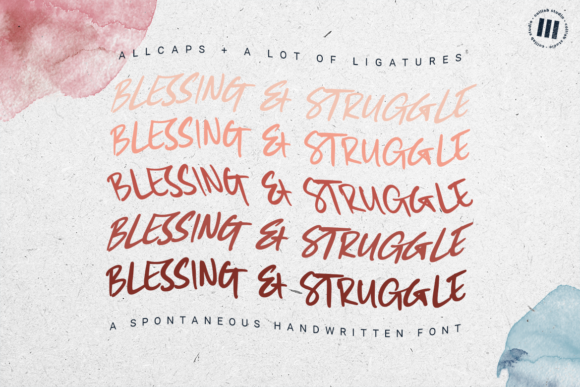
The Designer’s Delight: Blessing and Struggle Font
Ah, the elusive perfect font. You know, that one that makes your design project go from meh to mesmerizing. I’ve been there, done that, and got the t-shirt (which, by the way, was probably designed with a font that wasn’t quite right). But today, I’m excited to share with you a hidden gem that might just become your new best friend: the Blessing and Struggle font.
My First Impressions
I was working on a project for a client who wanted a playful, yet elegant look. I had tried a few fonts, but nothing seemed quite right. That’s when I stumbled upon Blessing and Struggle. This spontaneous and relaxed handwritten font immediately caught my eye. Its sweet and full-of-life style was exactly what I needed to brighten up my design.
- ✨ The playful, handwritten feel that adds a personal touch to any design
- ✅ The font’s versatility – it works well for both digital and print projects
- 💕 The unique character set that includes plenty of OpenType features and glyphs
- 👍 The font’s readability, even at smaller sizes
⚠️ While Blessing and Struggle is an amazing font, it’s not perfect. Some users might find that:
- 🤔 The font can be a bit overused due to its popularity, making it less unique in some contexts
- ⚠️ Some letters, like the uppercase ‘Q’ and ‘J’, might appear a bit awkward to some users
The Story Behind Blessing and Struggle
While the origins of Blessing and Struggle are unclear, it’s easy to imagine that the designer was inspired by the beauty of handwritten letters. Perhaps they wanted to create a font that captured the spontaneity and playfulness of everyday writing. Whatever the motivation, the result is a font that’s both unique and versatile.
Q: What type of projects is Blessing and Struggle best suited for?
A: Blessing and Struggle is perfect for creative projects, such as branding, packaging, posters, and social media graphics. Its playful feel also makes it suitable for children’s designs, like books or games.